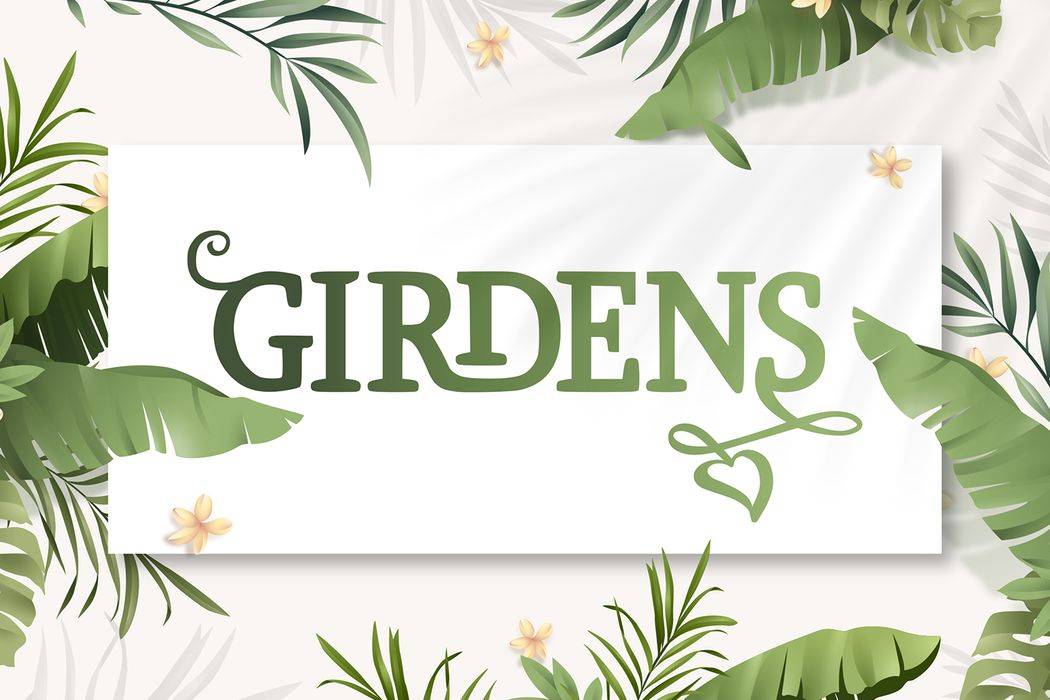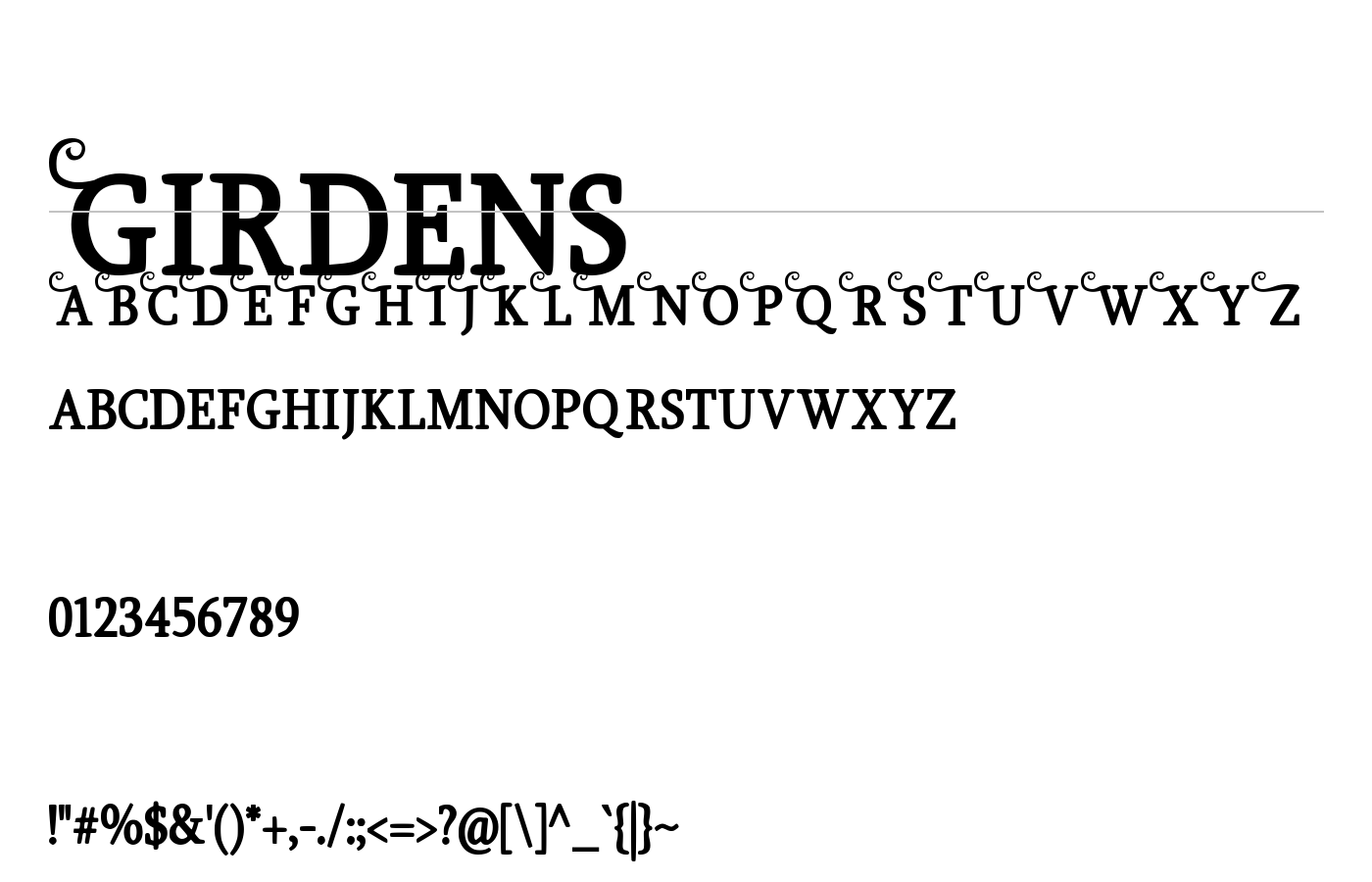
Girdens is a playful serif font featuring bold, strong strokes with decorative swirls extending from select uppercase letters, adding a whimsical and unique character. Its solid weight and classic serif structure make it suitable for eye-catching headlines and creative branding that aims to blend tradition with a touch of fun and elegance. This font works well for logos, posters, and packaging where a distinctive, memorable style is desired.
Girdens Font
About Girdens Font
| Font family | Girdens Font |
| Release date | 2020-07-03 |
| Designer | Stringlabs. 2020 |